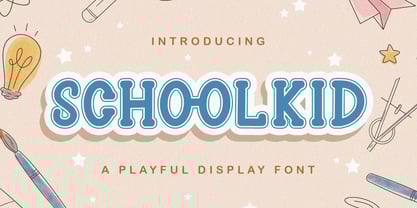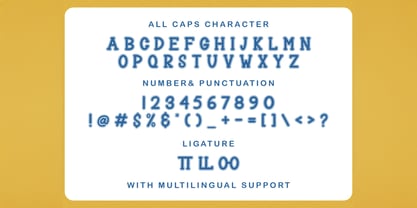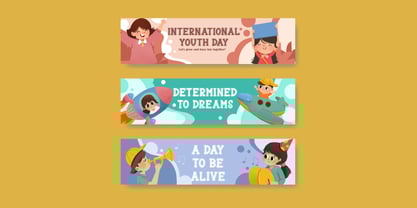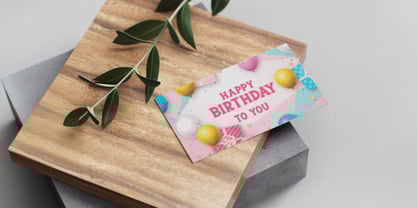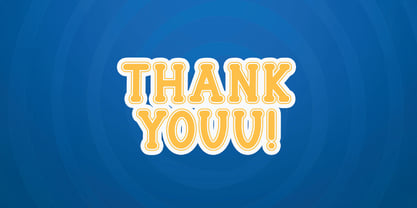
Die Schriftfamilie Schoolkid wurde von Virgiawan Listanto entworfen und von Stringlabs Creative Studio veröffentlicht. Schoolkid enthält 1 Stile. Mehr über diese Familie
Schoolkid is a cheerful and energetic display font that captures the fun spirit of childhood and school days. With its chunky shapes, playful curves, and handwritten vibe, this font is perfect for designs that need a joyful, youthful touch.